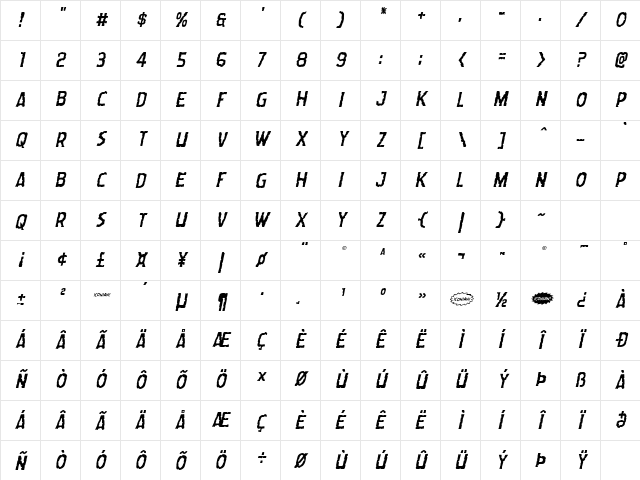
Worm Cuisine Staggered Italic is a composed and adaptable typeface that performs quietly and consistently across a wide range of design contexts. The slanted form adds forward momentum and visual energy.